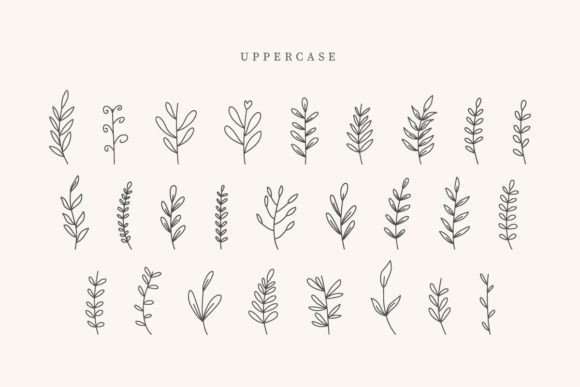
Bee Leaves Font: A Sweet Addition to Your Creative Projects
Are you a designer or crafter looking for a unique and beautiful font to add a touch of elegance to your creative projects? Look no further than Bee Leaves Font! This stunning botanical dingbat font is perfect for a variety of applications, from wedding invitations and stickers to logos, t-shirts, posters, and more.
What is Bee Leaves Font?
Bee Leaves Font is a carefully crafted botanical dingbat font that features intricate illustrations of leaves and flowers. The font is designed to resemble the delicate and beautiful illustrations found in vintage botanical prints. Each character in the font is a standalone illustration, making it perfect for use in a variety of creative projects.
Features of Bee Leaves Font
- Beautiful Botanical Illustrations: Bee Leaves Font features stunning illustrations of leaves and flowers, perfect for adding a touch of elegance to your designs.
- Dingbat Font: The font is designed as a dingbat font, making it easy to use and customize.
- Perfect for Creative Projects: Bee Leaves Font is ideal for use in a variety of creative projects, from wedding invitations and stickers to logos, t-shirts, posters, and more.
- Easily Customizable: The font is easily customizable, allowing you to adjust the size, color, and style to fit your design needs.
Uses for Bee Leaves Font
Bee Leaves Font is a versatile font that can be used in a variety of creative projects. Here are some ideas to get you started:
- Wedding Invitations: Add a touch of elegance to your wedding invitations with Bee Leaves Font.
- Stickers: Create beautiful stickers for your laptop, water bottle, or any other surface with Bee Leaves Font.
- Logos: Use Bee Leaves Font to create a unique and memorable logo for your business or brand.
- T-Shirts: Design custom t-shirts with Bee Leaves Font for a stylish and eye-catching look.
- Posters: Create stunning posters for your next event or promotion with Bee Leaves Font.
Why Choose Bee Leaves Font?
There are many fonts available, but Bee Leaves Font stands out from the rest. Here are just a few reasons why:
- Unique and Beautiful: Bee Leaves Font features stunning illustrations that will add a touch of elegance to your designs.
- High-Quality: The font is carefully crafted to ensure high-quality illustrations that will look great in any design.
- Easily Customizable: Bee Leaves Font is easy to customize, making it perfect for designers and crafters of all levels.
- Versatile: The font can be used in a variety of creative projects, making it a great addition to your font collection.
Tips for Using Bee Leaves Font
Here are a few tips for getting the most out of Bee Leaves Font:
- Experiment with Different Sizes: Try out different sizes to see what works best for your design.
- Play with Color: Experiment with different colors to add depth and interest to your design.
- Combine with Other Fonts: Try combining Bee Leaves Font with other fonts to create a unique and eye-catching look.
- Use in Digital and Print Designs: Bee Leaves Font can be used in both digital and print designs, making it a great addition to your font collection.
Bee Leaves Font is a beautiful and versatile botanical dingbat font that is perfect for designers and crafters. With its stunning illustrations and easily customizable design, it’s a great addition to any font collection. Whether you’re creating wedding invitations, stickers, logos, t-shirts, posters, or more, Bee Leaves Font is sure to add a touch of elegance and sophistication to your designs.